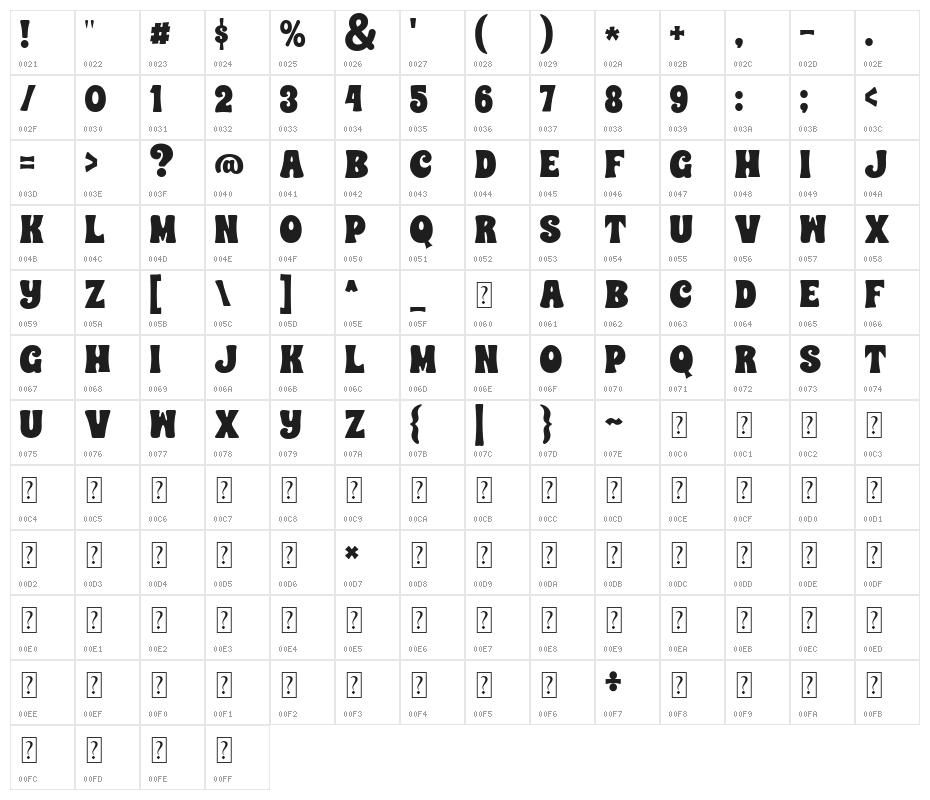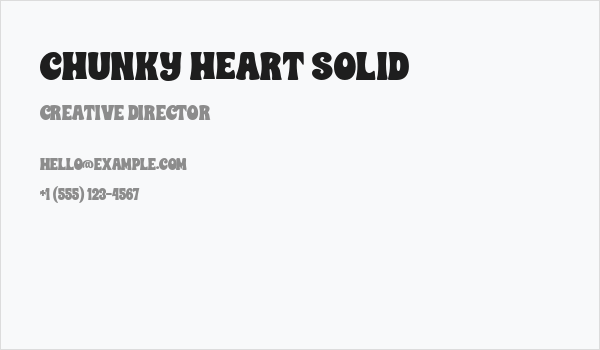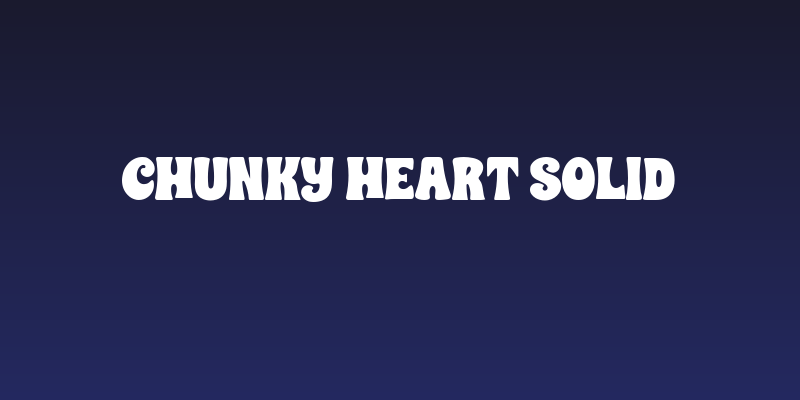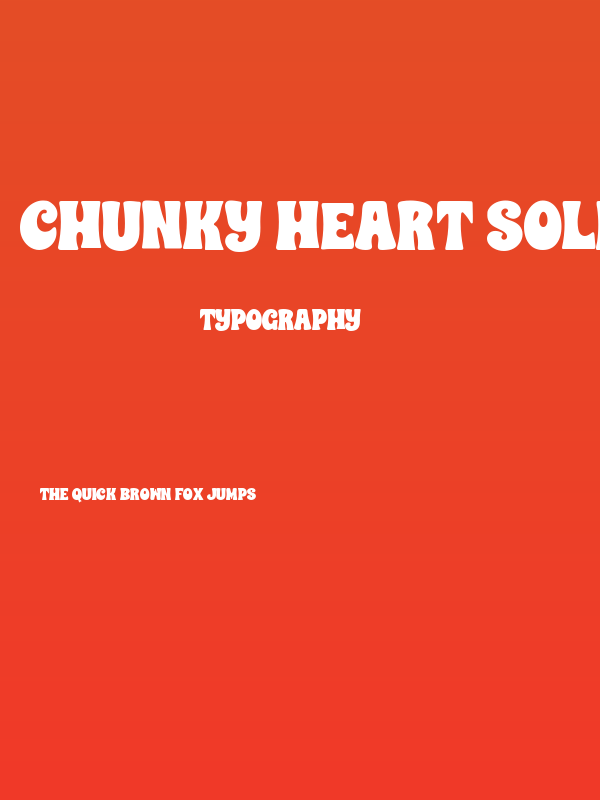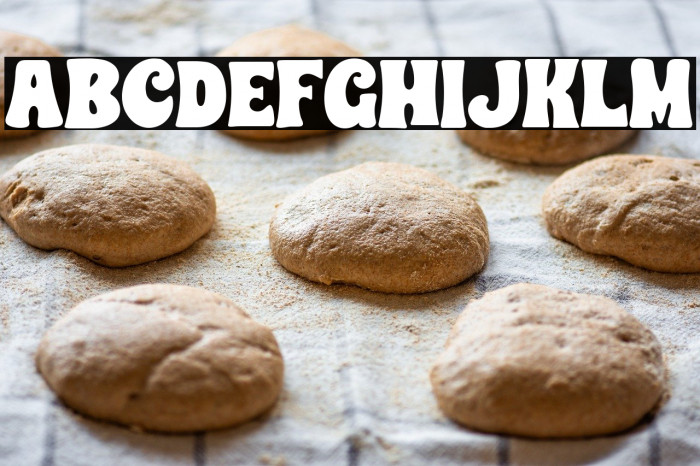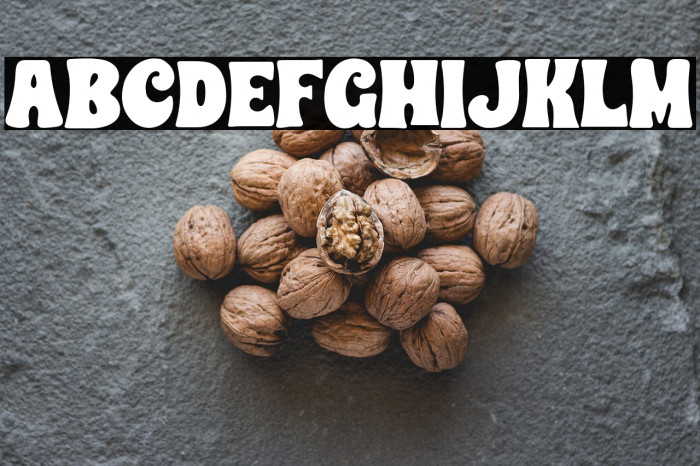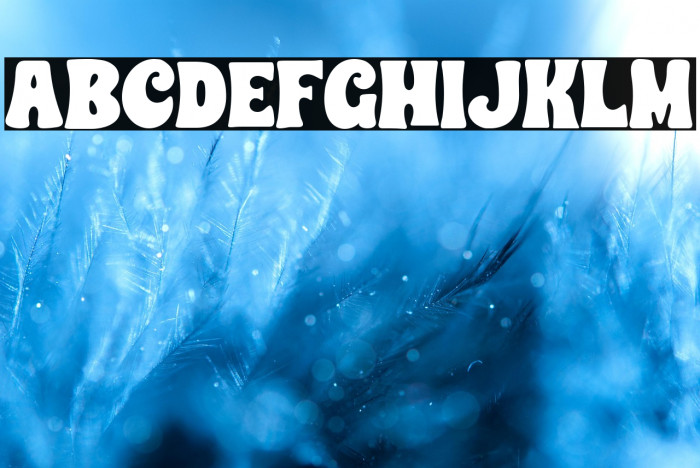
CHUNKY HEART SOLID Font
CHUNKY HEART SOLID Description
This font features a bold and playful design with thick, rounded strokes that give it a chunky appearance. The characters are heavily weighted, providing a solid and impactful look. The style is reminiscent of retro or vintage designs, with a whimsical touch that makes it stand out. The letters have a uniform thickness, contributing to a cohesive and balanced aesthetic. The overall feel is fun and energetic, making it suitable for projects that require a lively and eye-catching typeface.
| Proposed Projects | Ideal for children's books, playful branding, posters, and event invitations. |